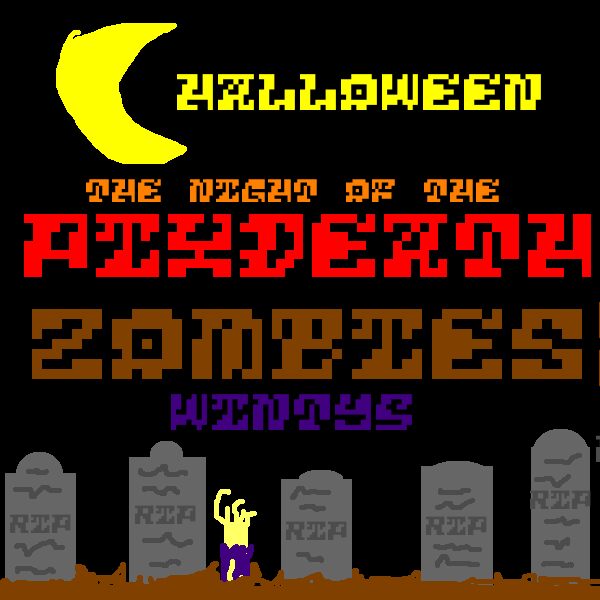
5Pixdeath is a free distressed pixel font with a dense, arcade-like silhouette. Broken gaps and abrupt cutouts make the letters flicker.
Glitch graphics and corrupted-screen patterns echo its fractured shapes, making it useful for game artwork and electronic music posters. Its severe weight also fits horror merchandise and dystopian film graphics. The clearest audience is designers after damaged arcade lettering with an aggressive digital edge.
5Pixdeath